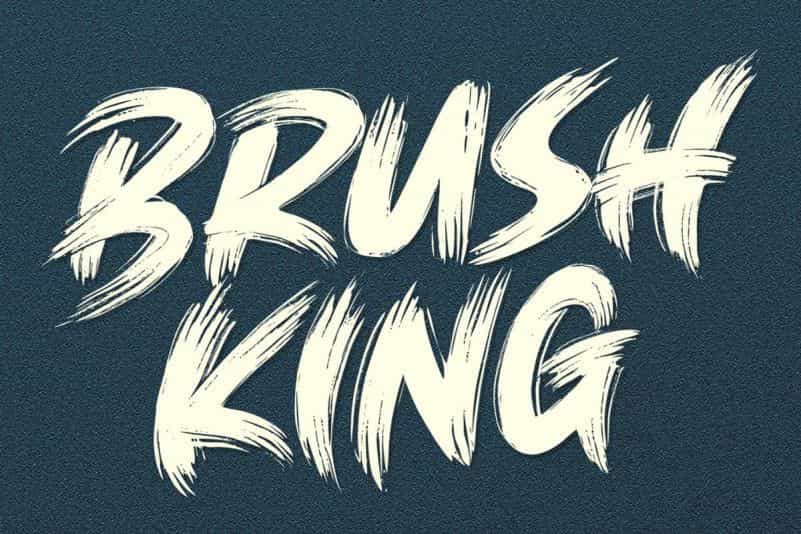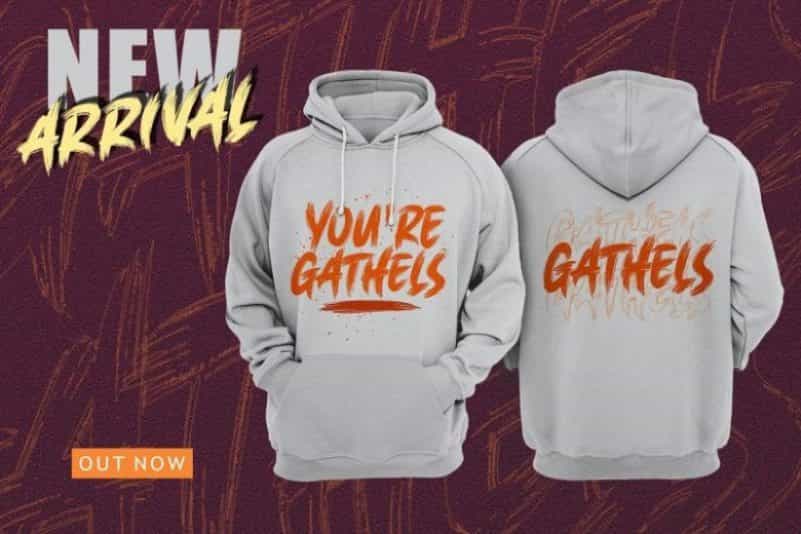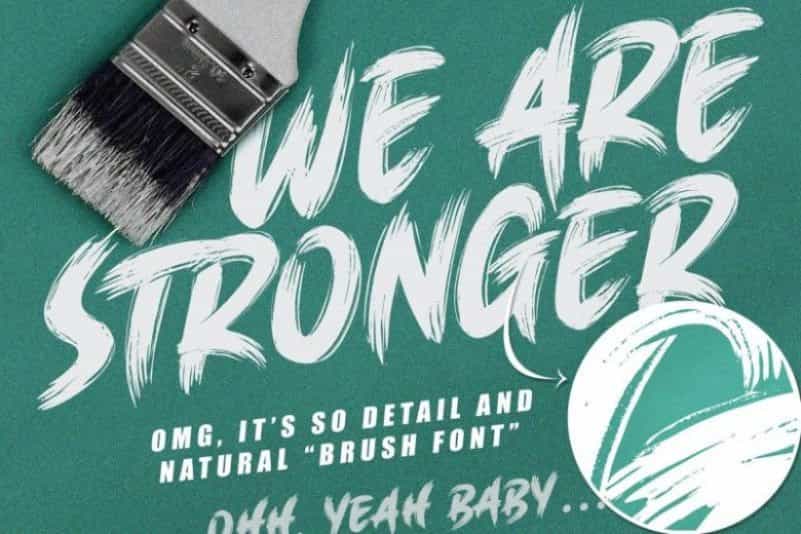
Proudly introducing: Brush King Font! A script font in a dry marker with speed and intimate touch. Great for logo and other branding projects, art prints, posters or packaging design.